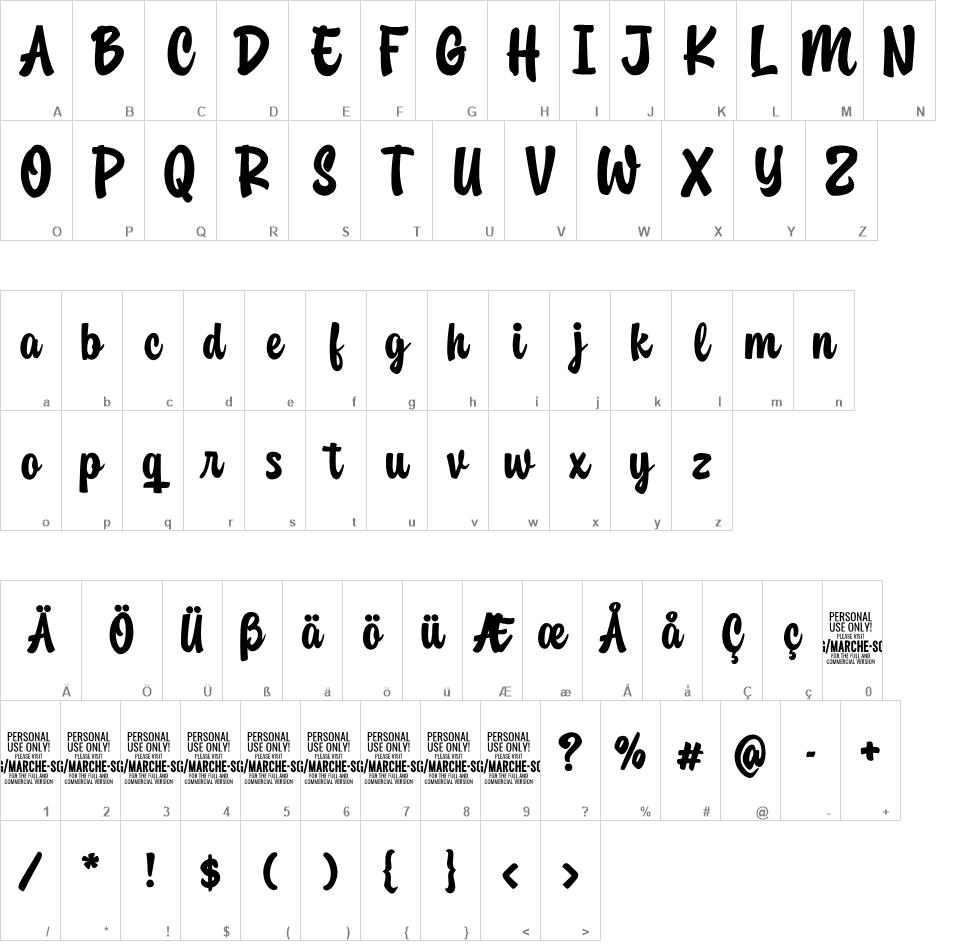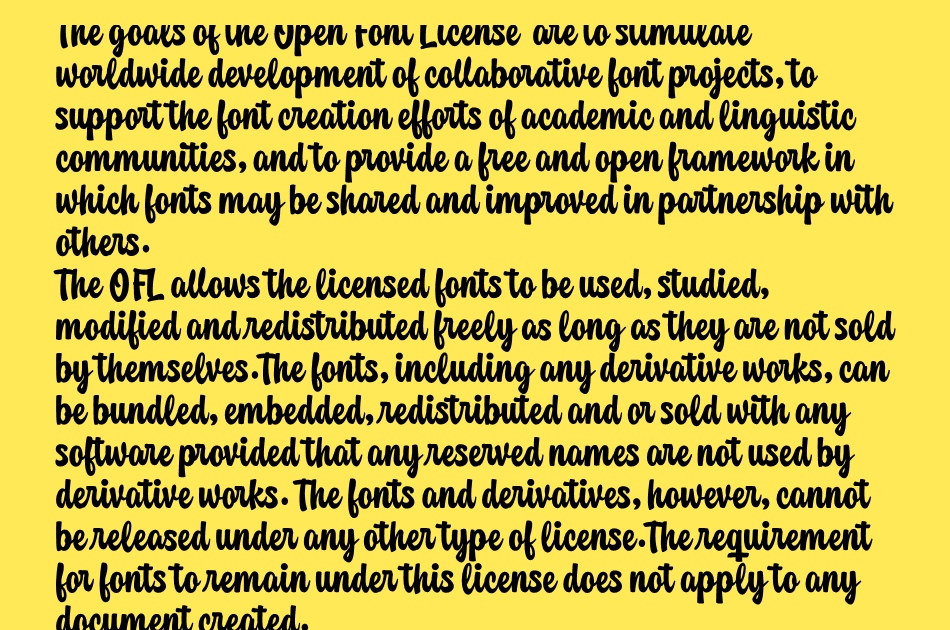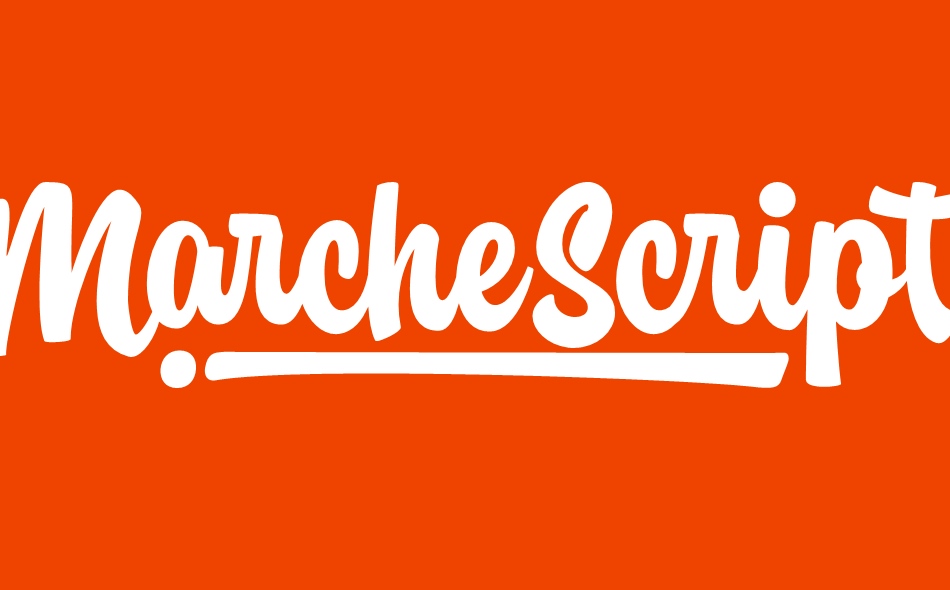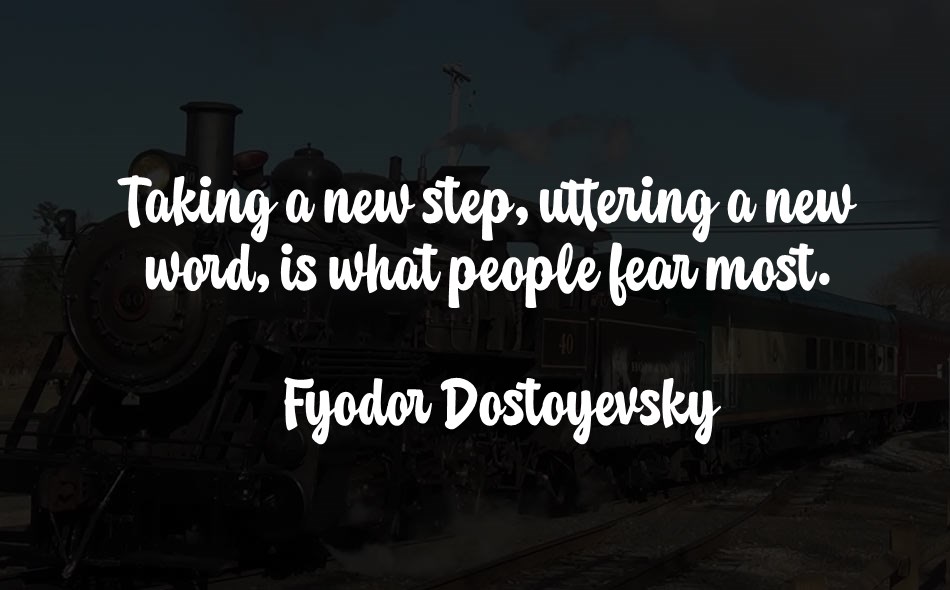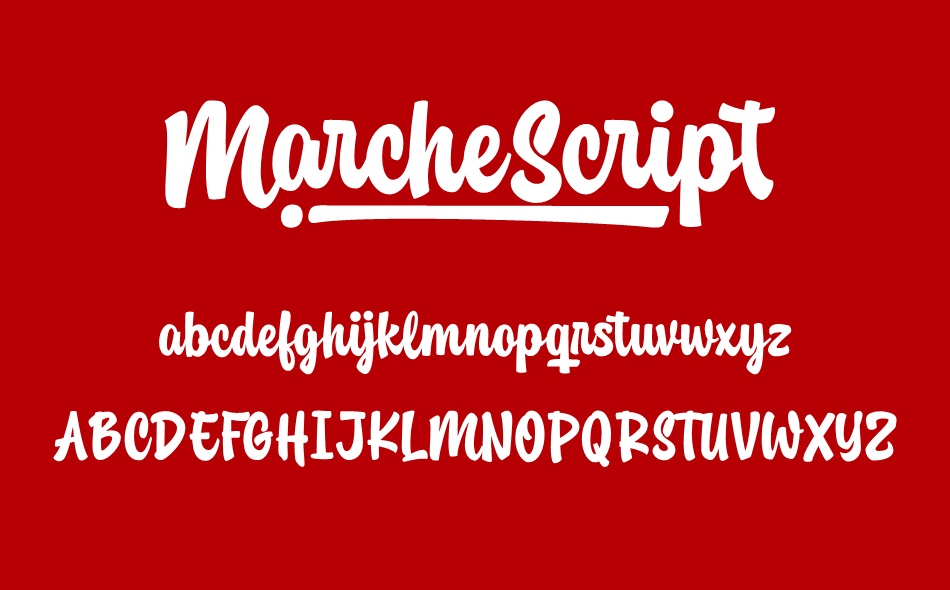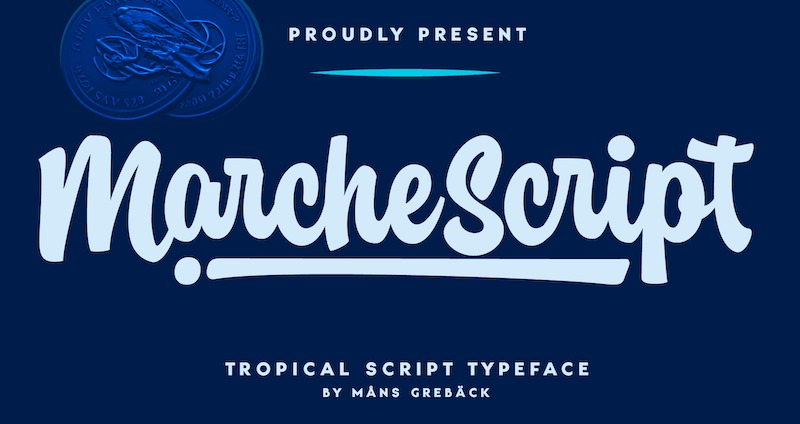
Marche Script font
Use underscore _ anywhere in a word to make a swash.
Example: World_score
Use multiple underscores to make swashes of different lengths.
Example: Brand_____Genie
Marche Script is a bold and expressive brush font that exhibits high-quality and genuine craftsmanship. Its thick strokes and playful curves make it perfect for creating impressive logos.
Designed with a focus on brush lettering, Marche Script offers a retro and rustic vibe that is sure to make your designs stand out. This font is perfect for logotypes, headlines, and other creative projects that require a touch of authenticity.
Marche Script comes in four styles: Regular, Italic, Bold, and Bold Italic. Each style offers its own unique character, and all are equipped with ligatures to add even more flair to your designs.
Use this font to add a touch of handmade charm to your next project, and watch it come to life with the high-quality and expressive strokes of Marche Script.
Use underscore _ anywhere in a word to make a swash. Example: World_score
Use multiple underscores to make swashes of different lengths. Example: Brand_____Genie
The font is built with advanced OpenType functionality and has a guaranteed top-notch quality, containing stylistic and contextual alternates, ligatures and more features; all to give you full control and customizability. It has extensive lingual support, covering all Latin-based languages, from Northern Europe to South Africa, from America to South-East Asia. It contains all characters and symbols you'll ever need, including all punctuation and numbers.